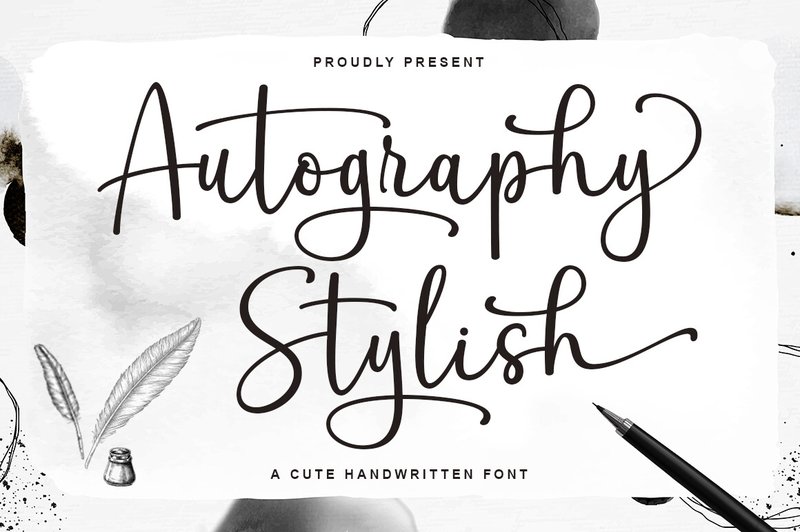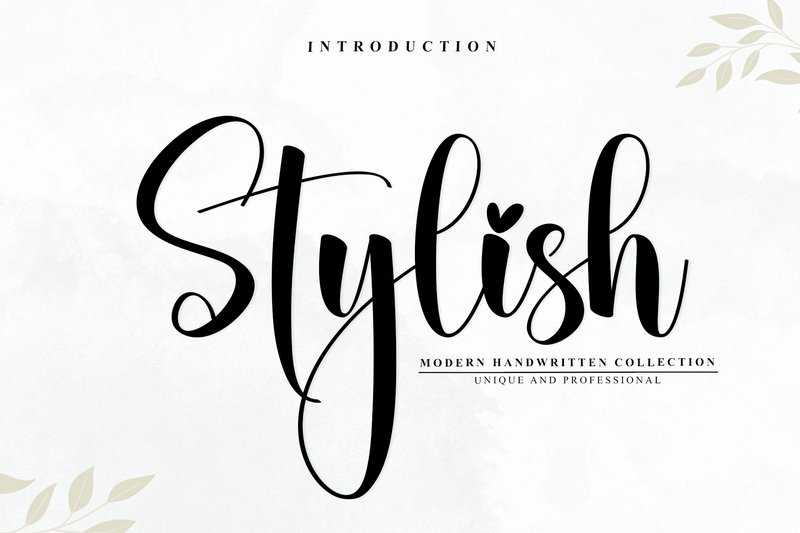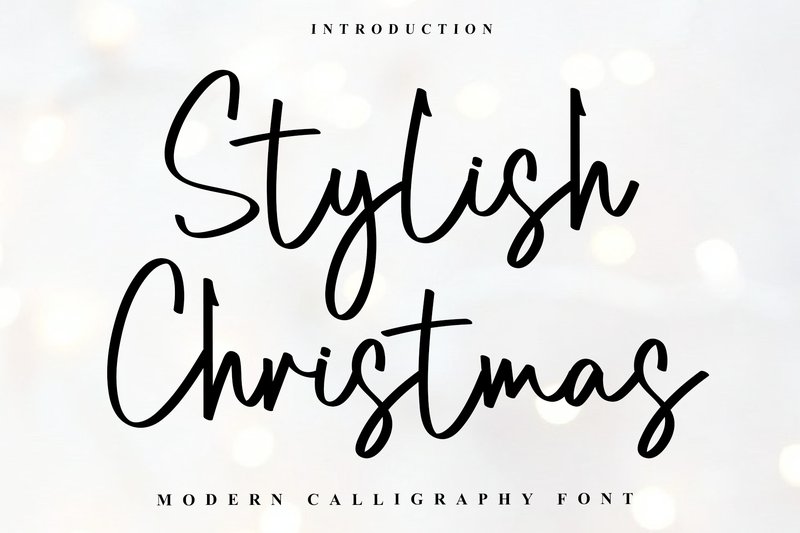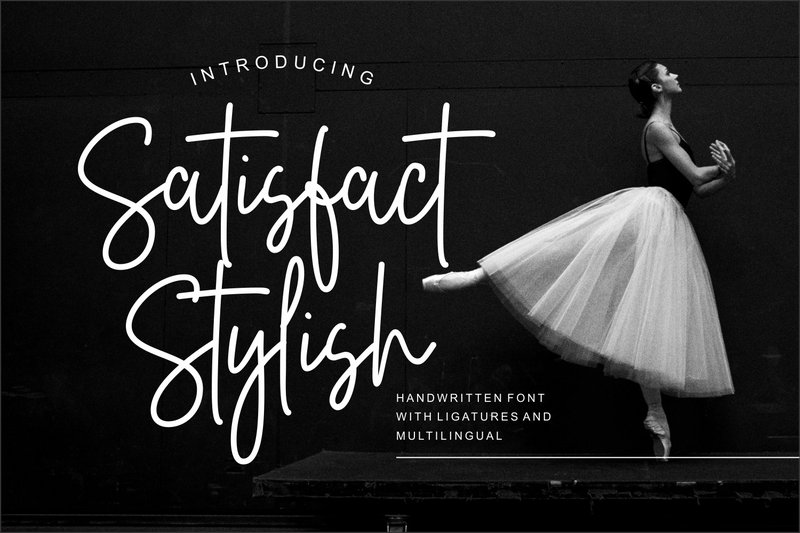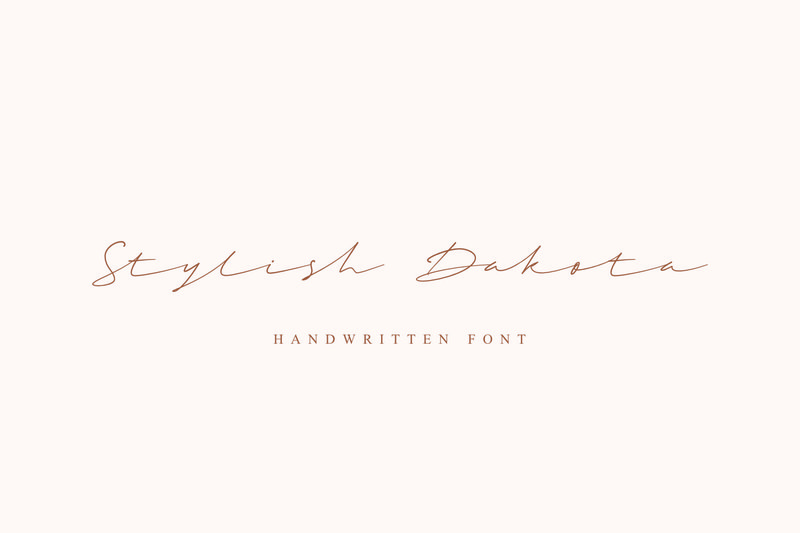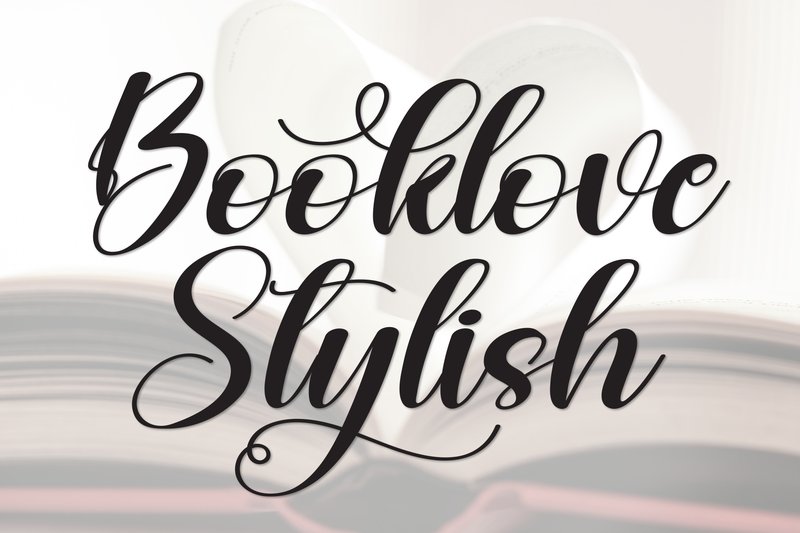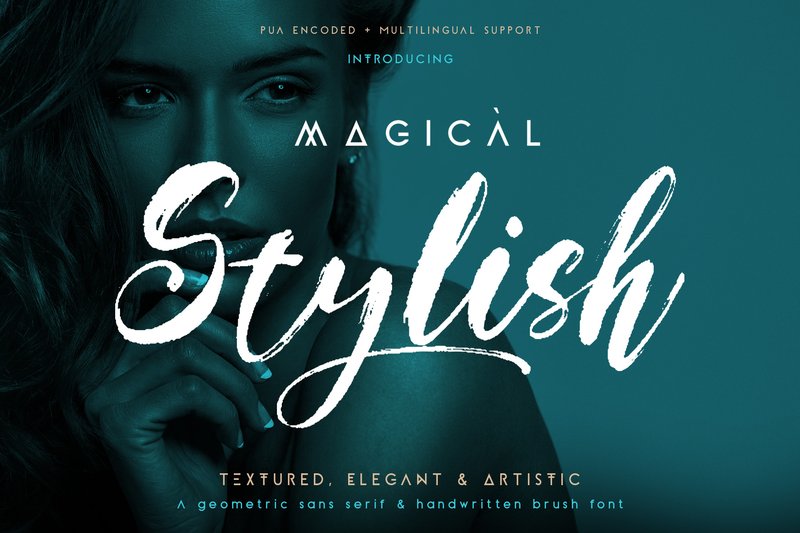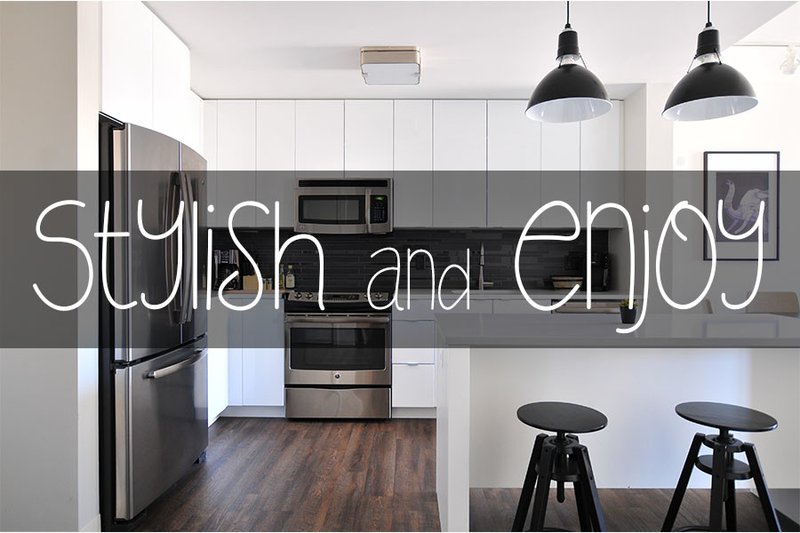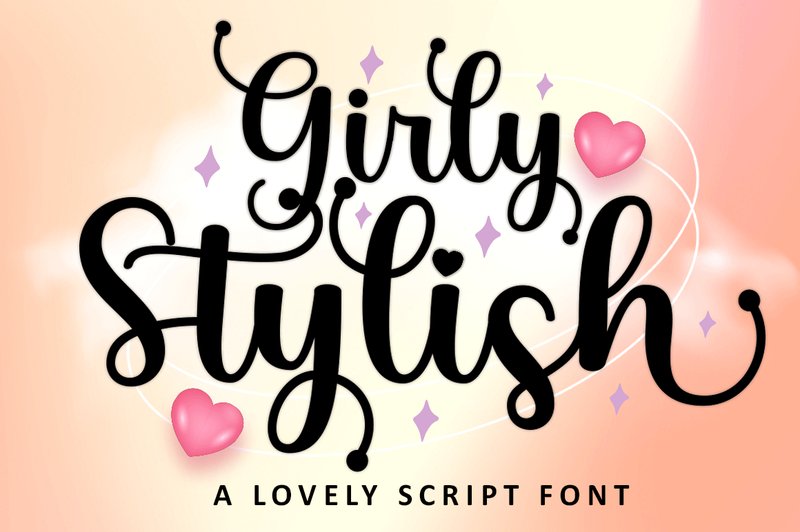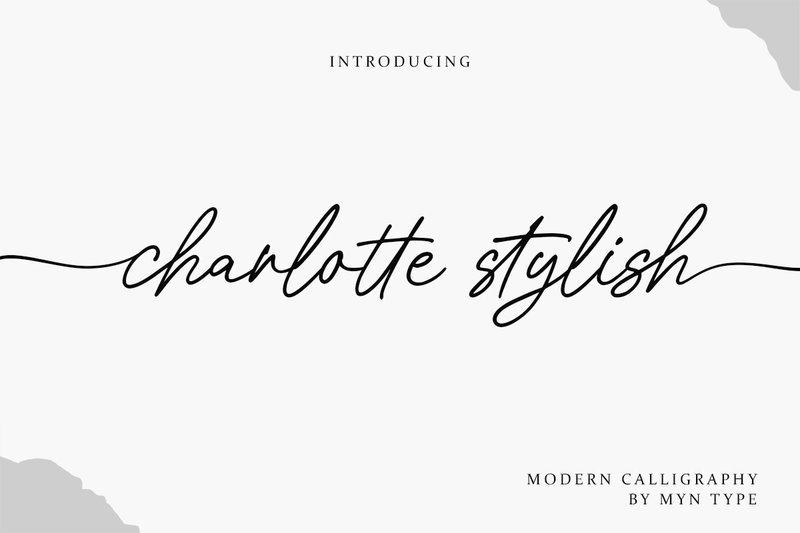
1. Autography Stylish (by rotterlabstudio)
Autography Stylish (by rotterlabstudio) brings the effortless elegance of authentic handwriting to the forefront of modern design. This casual script font moves with a fluid, natural rhythm, creating a sense of personal connection and approachable sophistication. Its clean lines and balanced letterforms make it incredibly readable for a script, allowing it to feel both intimate and professional. Autography Stylish is the perfect choice for projects that need to communicate warmth and a bespoke, human touch without sacrificing an ounce of style.
- Natural, flowing handwritten letterforms
- Elegant and casual script aesthetic
- Comprehensive character set for versatile use
- High readability for a signature-style font
- Signature logos and brand watermarks
- Wedding invitations and event stationery
- Engaging social media quote graphics
- Packaging and labels for artisanal products
2. Stylish (by Black line)
Stylish (by Black line) feels like a personal, handwritten note passed from a dear friend—effortlessly chic, warm, and full of character. This modern script font dances across the page with its graceful, flowing curves and delightful heart details, infusing every design with an air of intimate elegance and feminine charm. It doesn’t just spell out words; it conveys emotion, making any project feel both sophisticated and deeply personal.
- Elegant handwritten script with flowing, organic curves.
- Includes charming heart details, swashes, and alternate characters.
- Full PUA-encoded character set with uppercase, lowercase, numerals, and multilingual support.
- Boutique branding, logos, and high-end packaging design.
- Wedding stationery, event invitations, and romantic quotes.
- Creating captivating social media graphics and signature watermarks.
3. Stylish Christmas (by Creatype Designer)
Stylish Christmas (by Creatype Designer) is another masterstroke from Creatype Designer, a studio known for crafting typefaces with undeniable elegance. This handwritten script font feels both personal and polished, blending the organic warmth of authentic calligraphy with the clean lines of modern design. Its fluid, graceful letterforms dance across the page, creating a sense of effortless sophistication perfect for projects that need a touch of human-made artistry and high-end appeal.
- Graceful, flowing curves that create a seamless, elegant rhythm.
- An authentic, hand-lettered quality for a personal, bespoke feel.
- Excellent legibility, ensuring clarity even in its sophisticated script style.
- A refined and polished finish ideal for upscale applications.
- Luxury branding and sophisticated logo designs.
- Elegant wedding invitations and event stationery.
- High-end product packaging and labels.
- Magazine headlines and fashion editorials.
4. Satisfact Stylish (by Nun Creatype)
Satisfact Stylish (by Nun Creatype) With its delicate, free-flowing strokes, Satisfact Stylish emulates the natural rhythm of a high-end ink pen meeting paper. This font delivers an air of effortless sophistication, where every ligature and swash feels intentional yet spontaneous. It’s the kind of personal, handwritten touch that elevates a design from simple to bespoke, creating an immediate sense of intimacy and luxury for any modern brand.
- Authentic, free-flowing signature script
- Elegant letterforms with a classy, sophisticated feel
- A natural, handwritten aesthetic for a personal touch
- High-end branding, logos, and watermarks
- Wedding invitations, stationery, and event signage
- Luxury product packaging, labels, and advertisements
- Quote graphics and stylish social media posts
5. Stylish Dakota (by andikafez)
Stylish Dakota (by andikafez) feels less like a digital typeface and more like the effortless, elegant script of a seasoned calligrapher. Each character flows into the next with a natural, unforced rhythm, creating a look that is both personal and polished. It strikes a beautiful balance between modern simplicity and timeless sophistication, making it an incredibly versatile choice for brands aiming for an approachable yet refined identity.
- Fluid, interconnected letterforms that mimic natural handwriting.
- A full set of elegant uppercase and lowercase characters.
- Includes stylistic alternates and ligatures for a custom, authentic look.
- Clean, smooth lines perfect for both digital screens and high-quality print.